Here, we’ve compiled a list of 34 go-to fonts that you’ll want to use in design projects this year.
While some of these options are free fonts, others are premium typeface options (everyone needs a few go-to premium type families). There’s also a mix of new and classic fonts to choose from.
2019 Type Trends at a Glance
There are a few things we’re already starting to notice when it comes to typography this year. Many of the options in this list have these trending styles in mind.
- San serif stacked typography with three- to five- lines of text.
- Use of more serif font options.
- Retro and outline/inline styles with a classic vibe.
- Elaborate swashes and flourishes for short text.
- Thick lines and bold letterforms.
1. Lato
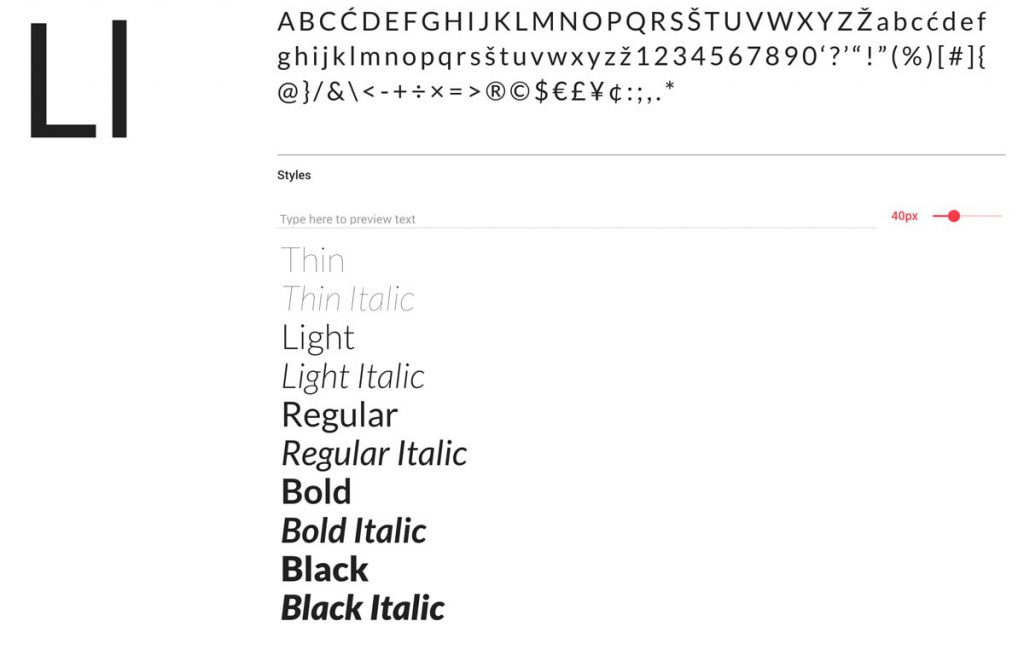
Lato is one of those fonts that never gets old. Semi-rounded details of the letters give Lato a feeling of warmth, while the strong structure provides stability and seriousness. “Male and female, serious but friendly.
With the feeling of the Summer,” according to designer Łukasz Dziedzic. This is a popular typeface, thanks to inclusion in Google Fonts.
2. Evolve Sans
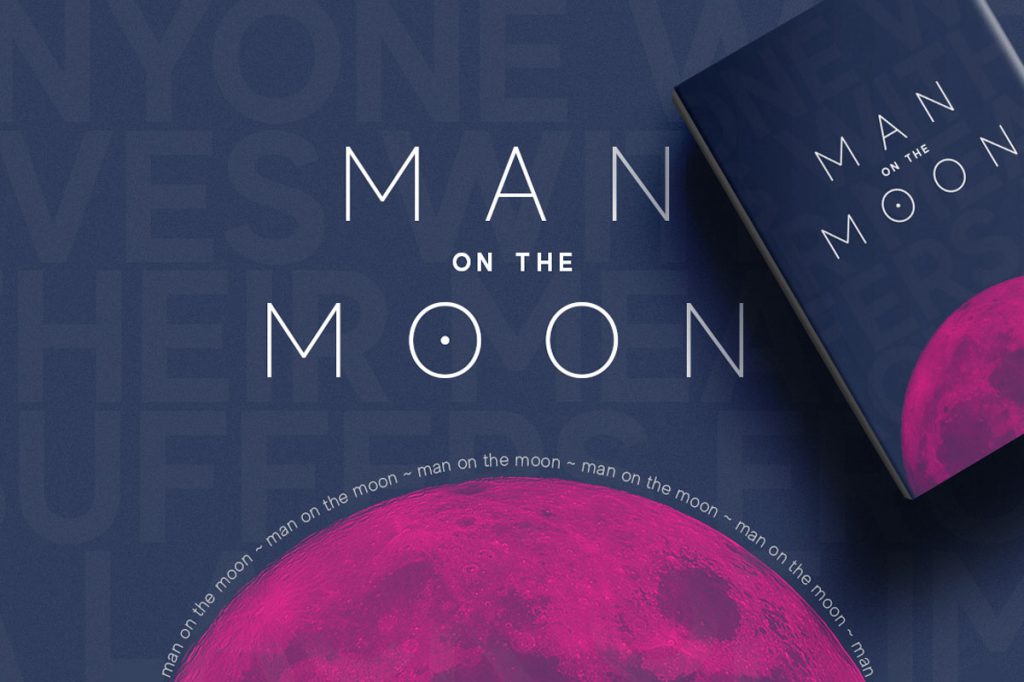
Evolve Sans includes 10 fonts in multiple weights and a futuristic alternate that’s fun for specific characters or uses. The thin versions are only heavy enough for over-sized applications, but the regular and bold weights are exceptional for almost all display text.
4. MORGANITE
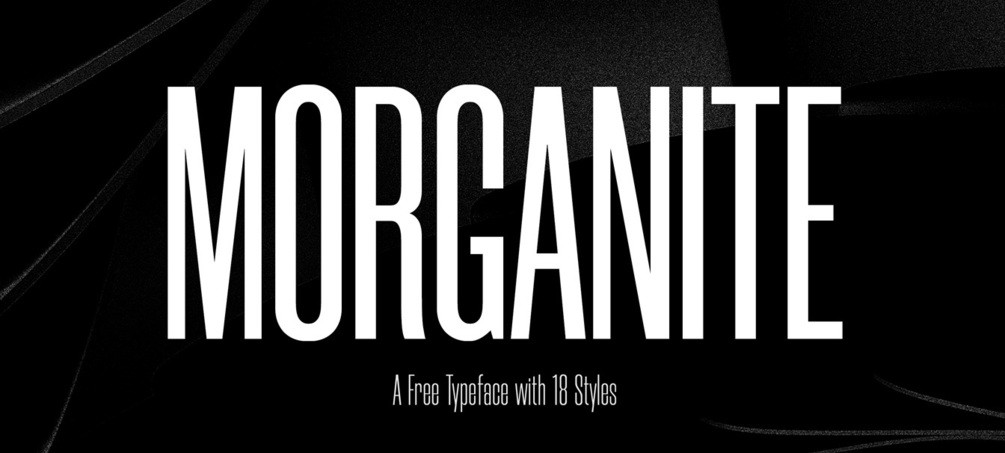
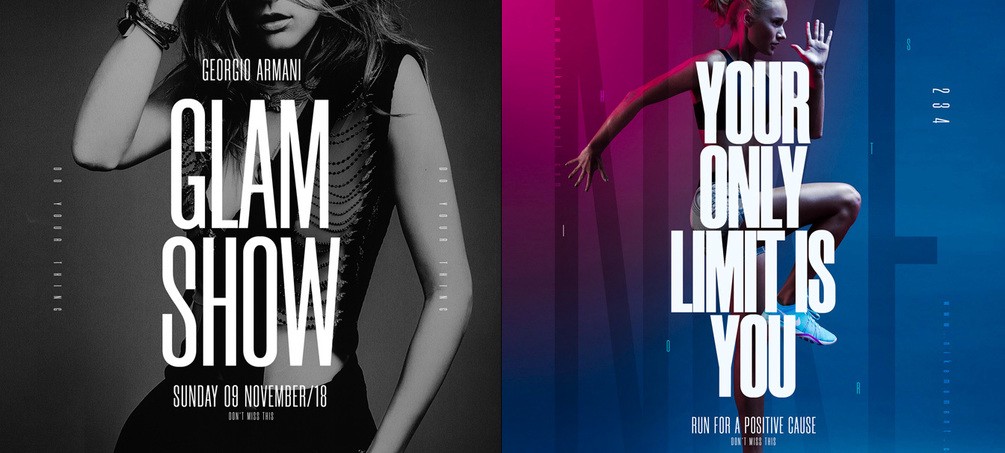
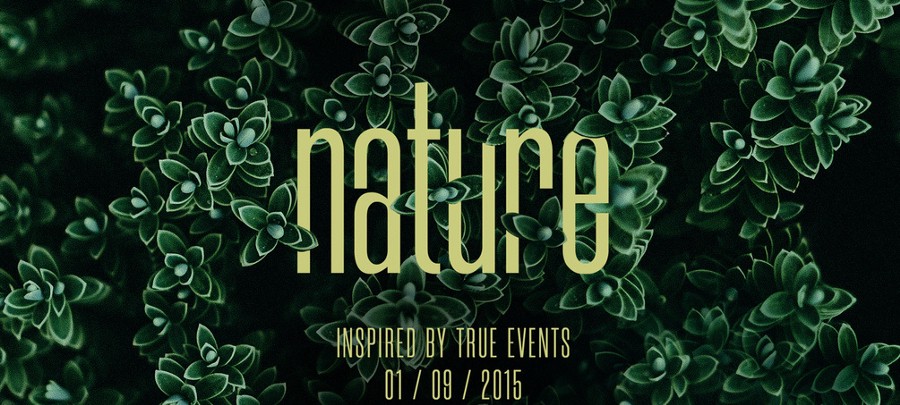
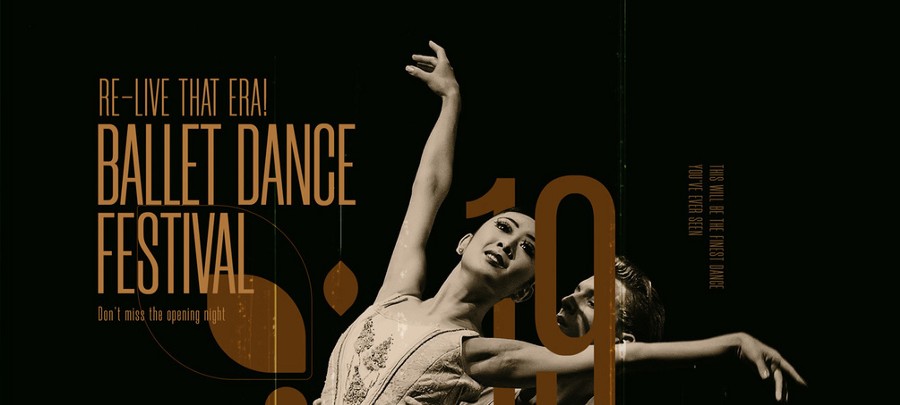
Morganite is an amazingly complex free sans serif font. The uppercase character set is lovely for display and while lowercase letters have a “crunched” feel, they can work nicely for short text elements. For a typeface with such a high x-height it is quite readable. Find from the designer on Behance.
5. Giveny
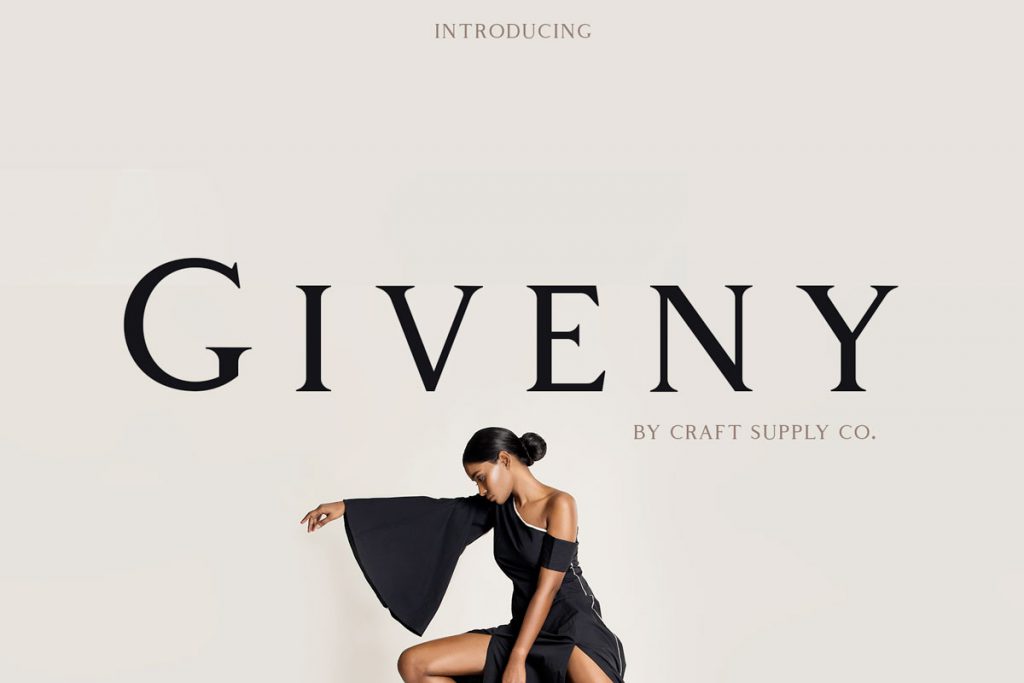
Giveny is a classically-style serif in an all uppercase style. Use it for display to add the right feel to projects that need a special something. Download it from the designers on Behance.
6. Mosk
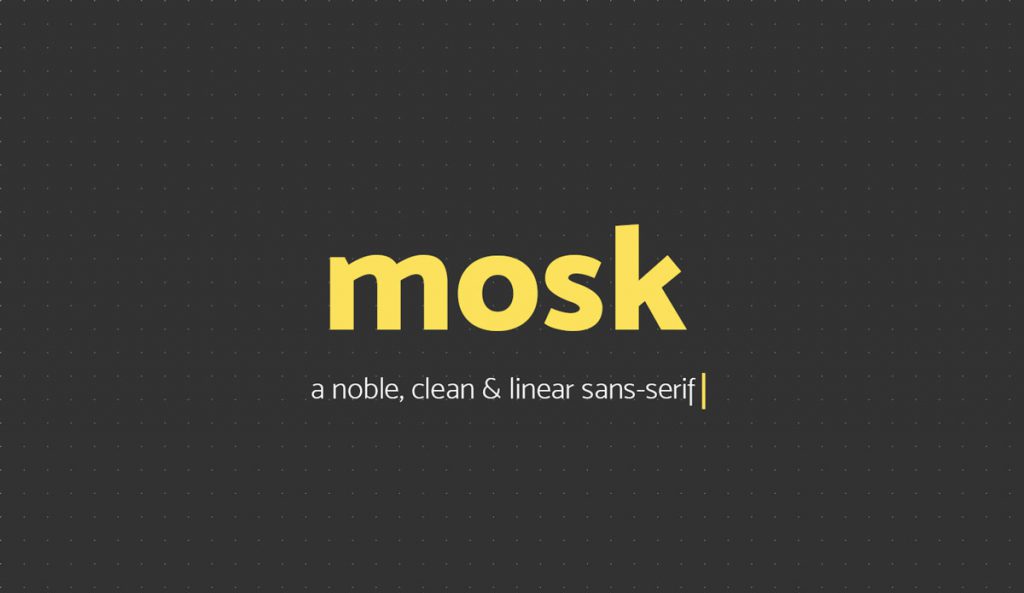
Mosk is a powerful sans serif font with nine styles and plenty of weights so that it can be an all-in-one font solution. The angled letterforms and clean lines make It great for stacking, body text and display. Download it from the designer on Behance.
7. THE CIRCUS DISPLAY
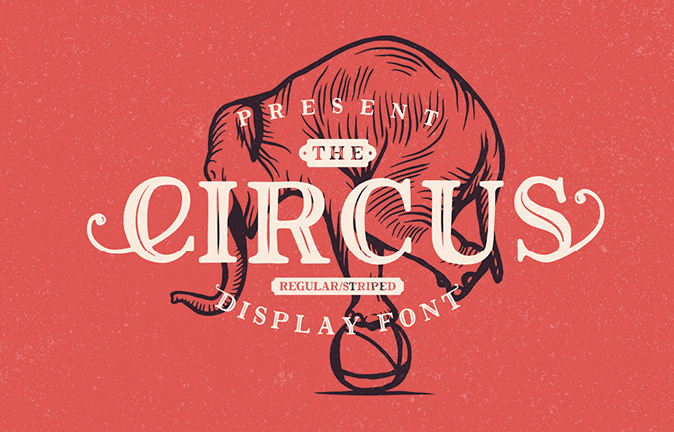
The Circus Display font is a versatile font with a retro style and fun swashes and tails. If you need an interesting display option, this might be it. From the designer: “This rough typeface has a strong charisma, appealing to the audience.
Coming in two different styles (regular and striped one), it gives a chance to freely edit the degree of its ‘vintageness.’” Download this free front from PixelBuddha.
8. ARKIPELAGO
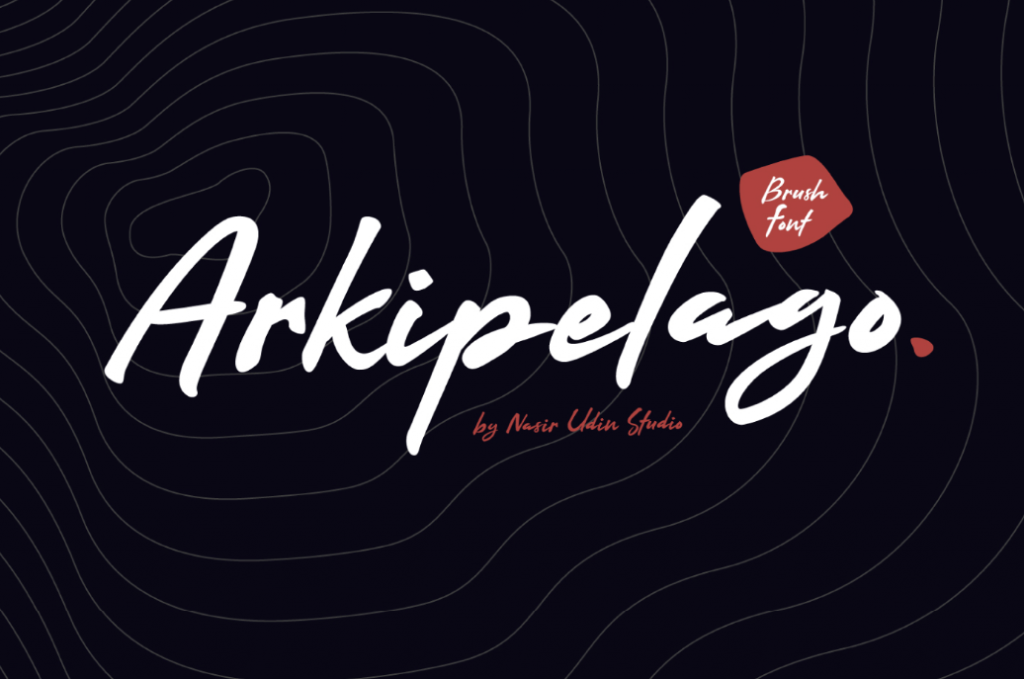
9. TRADESMITH
10. COLUS
11. COLORTUBE
12. BRIBERRA
13. ALOJA
14. CUNIA
15. SPACE GROTESK
16. HORIZON
17. BUCKWHEAT
18. FREE FAT FONT!
19. UNDERSTOCK
20. FINLAND
21. ACRYLIC HAND THICK
22. SERICO
23. BOBBY JONES
Bobby Jones is a fun – and funky – font with a rounded style, rough and soft options and an outline style. While this typeface has a quirky nature, it also has a cool retro feel. Download it free (personal use only) from PixelSurplus.
24. PUZZLED
Puzzled is a trendy script with long tails and elaborate lines. While the font has a more feminine feel, it can work in a number of applications. Most effective uses would include simple text elements with a few characters to best make use of elaborate styling. Download it free from PixelSurplus.
25. ANODINA
26. BRIPOKUS STENCIL FONT
27. HANSIEF
28. TUESDAY NIGHT
29. MINDFULLY
30. RUSTICO
31. AILERON
32. BIG JOHN / SLIM JOE
33. DISCLAIMER
34. FIXER